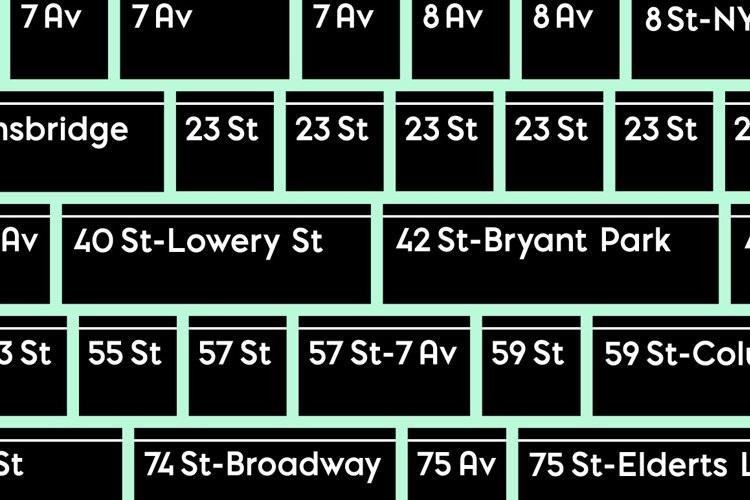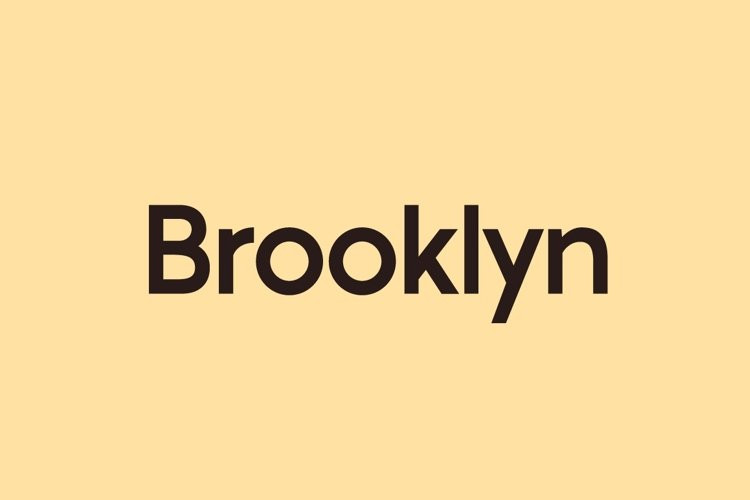
Pontiac Font Family
Pontiac Font FamilyPontiac is a sans serif OpenType font designed by Fanny Coulez and Julien Saurin in Paris. Somewhere between Akzidenz Grotesk and Neutra, Pontiac is a functional font with something more, something warm, geometric but human, something distinctive, something French finally.